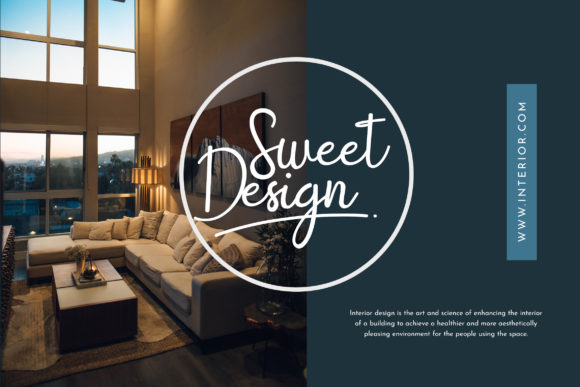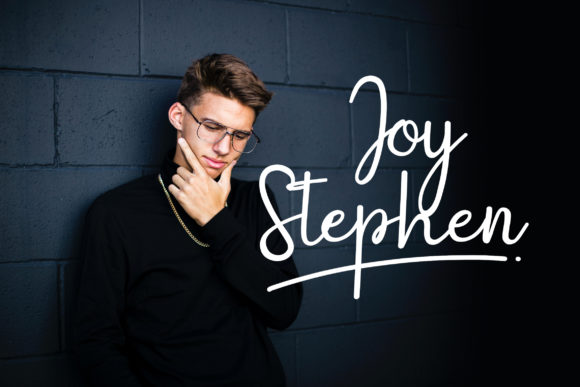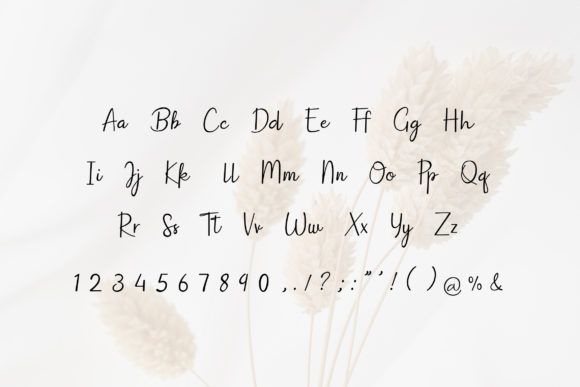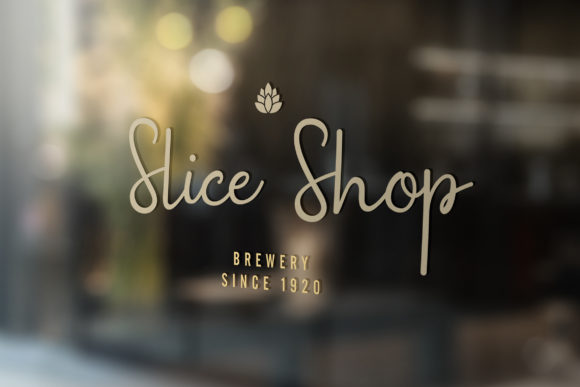
Dish Domine Font: Elevate Your Designs with Modern Elegance
In the world of typography, a font can make or break the visual appeal of a design. For designers and crafters looking for a modern script font that exudes style and sophistication, Dish Domine is an excellent choice. This stunning font is designed to make a statement, with smooth curves and a bold presence that commands attention.
The Characteristics of Dish Domine Font
Dish Domine is a modern script font that boasts a unique blend of readability, boldness, and style. Its smooth curves and fluid lines create a sense of elegance and refinement, making it perfect for fashion branding, editorial designs, and other high-end applications. The font’s clean and crisp lines ensure that it remains legible even at smaller sizes, making it versatile for use in a variety of contexts.
Why Choose Dish Domine Font?
So, what sets Dish Domine apart from other script fonts on the market? Here are just a few reasons why designers and crafters are falling in love with this stunning font:
• Readability: Despite its bold and stylish appearance, Dish Domine remains highly readable, even at smaller sizes. This makes it perfect for use in body text, headlines, and titles.
• Elegance: The font’s smooth curves and fluid lines create a sense of elegance and refinement, making it perfect for high-end applications such as fashion branding and editorial designs.
• Versatility: Dish Domine is a versatile font that can be used in a variety of contexts, from digital designs to print materials.
• Uniqueness: With its unique blend of modernity and sophistication, Dish Domine is sure to make your designs stand out from the crowd.
Perfect for Fashion Branding and Editorial Designs
Dish Domine is particularly well-suited for fashion branding and editorial designs, where style and sophistication are paramount. The font’s bold and stylish appearance makes it perfect for use in:
• Fashion logos: Create a lasting impression with a custom logo that showcases your brand’s personality and style.
• Editorial headlines: Grab the reader’s attention with bold and stylish headlines that demand attention.
• Magazine and newspaper titles: Make a statement with a font that exudes elegance and refinement.
Tips for Using Dish Domine Font
To get the most out of Dish Domine, here are a few tips to keep in mind:
• Use it boldly: Don’t be afraid to use Dish Domine in bold and eye-catching ways, such as in headlines and titles.
• Experiment with colors: Try pairing Dish Domine with different colors and textures to create a unique and eye-catching effect.
• Mix and match: Combine Dish Domine with other fonts to create a unique and visually appealing typography.
In conclusion, Dish Domine is a stunning modern script font that is sure to elevate your designs to new heights. With its smooth curves, bold presence, and high readability, it’s perfect for fashion branding, editorial designs, and other high-end applications. Whether you’re a designer or crafter, Dish Domine is a font that you won’t want to miss. So why wait? Add it to your projects today and experience the difference for yourself!